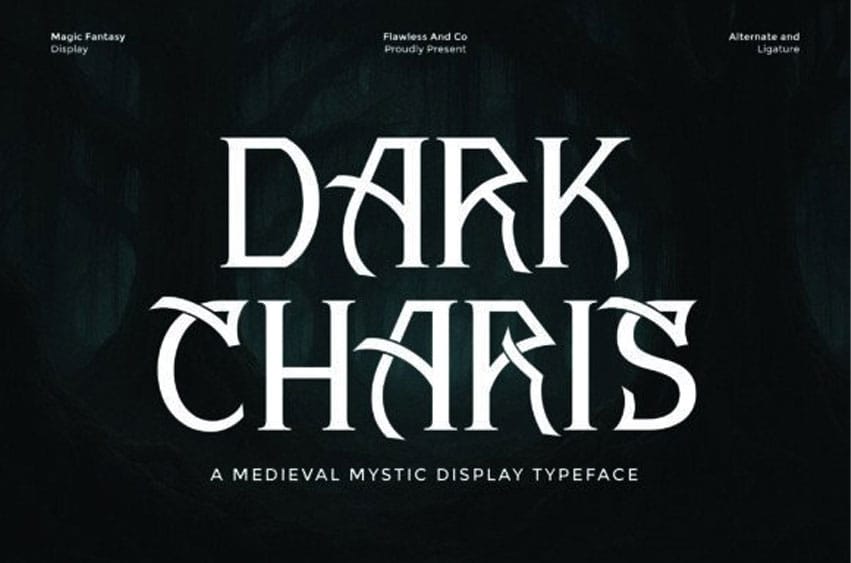
Dark Charis Font is a bold fantasy display typeface that blends medieval mysticism with a modern creative touch. With its sharp curves, intricate ligatures, and enchanting design, this font instantly brings a sense of magic, mystery, and elegance to your projects. Perfect for fantasy book covers, game titles, movie posters, logos, or branding that requires a strong and mystical presence, Dark Charis creates a dramatic visual impact.